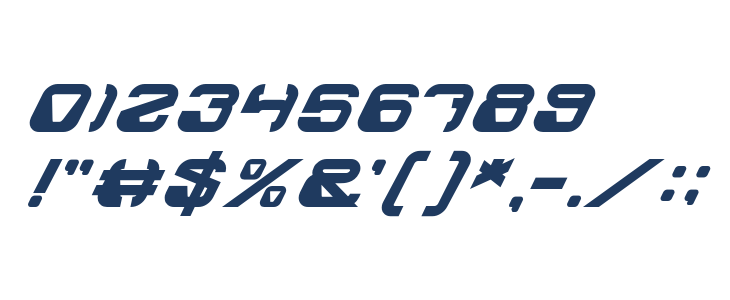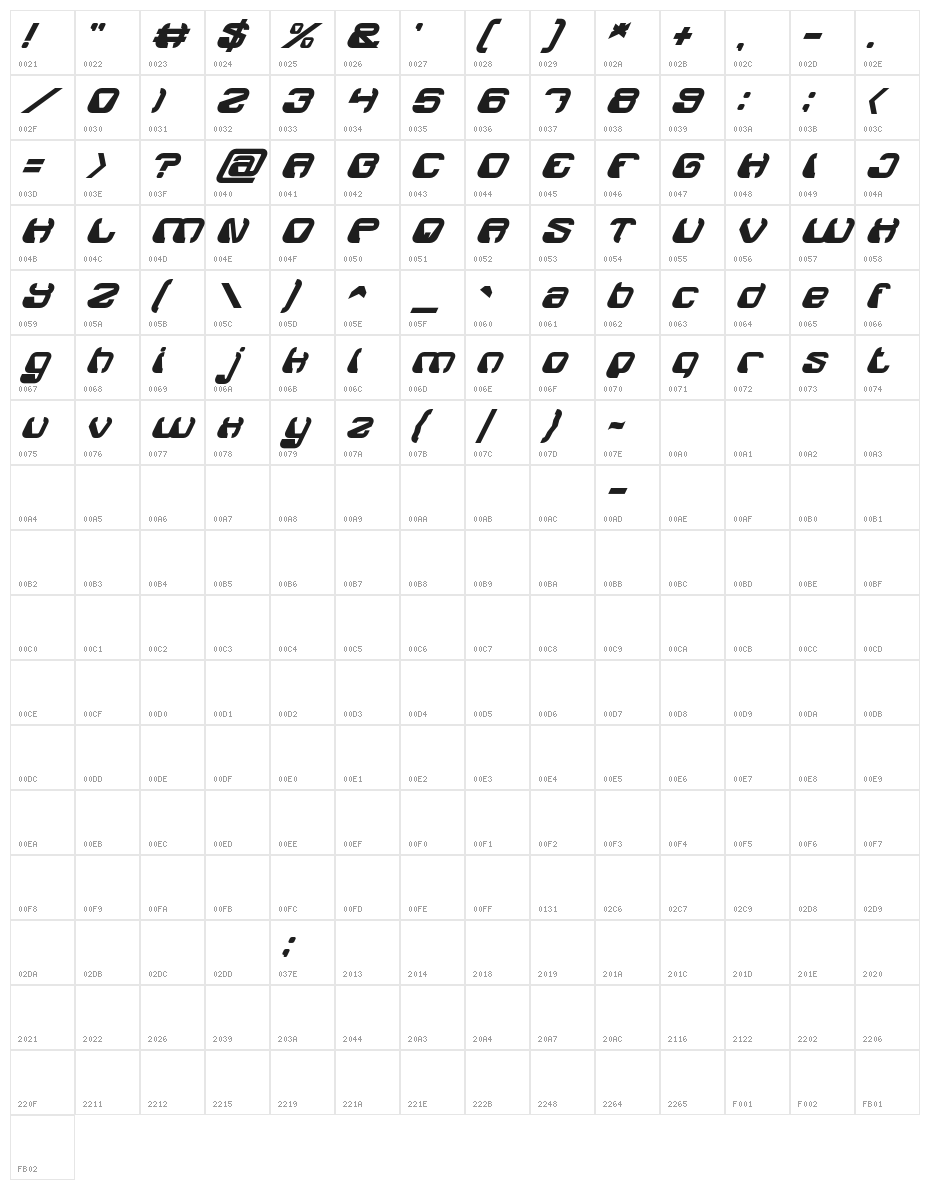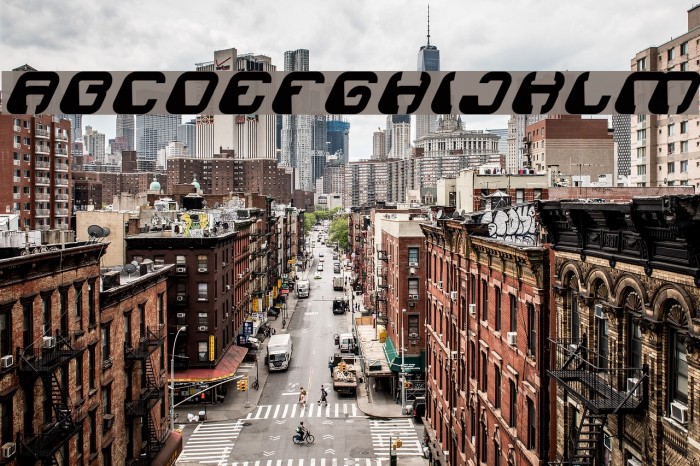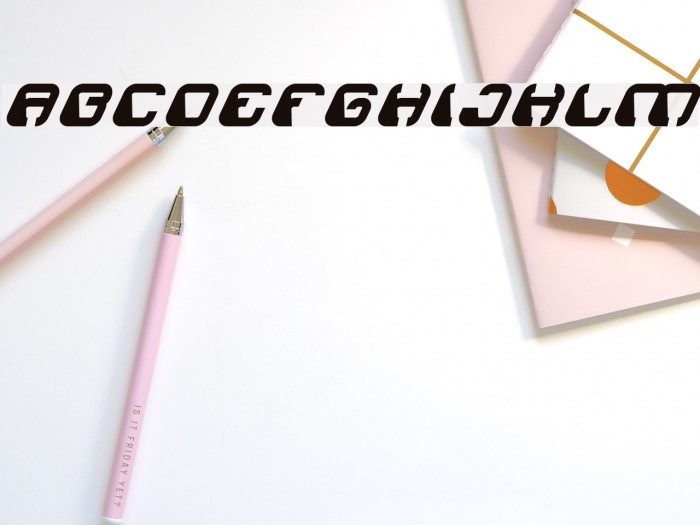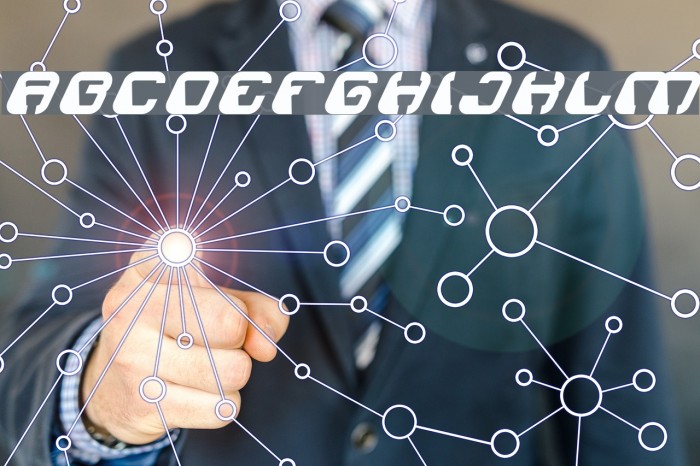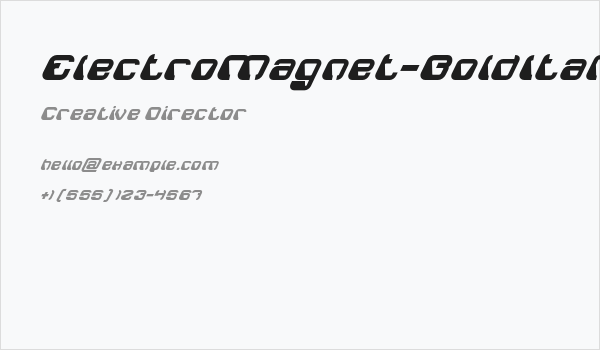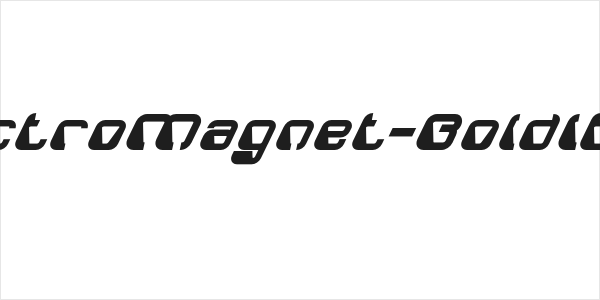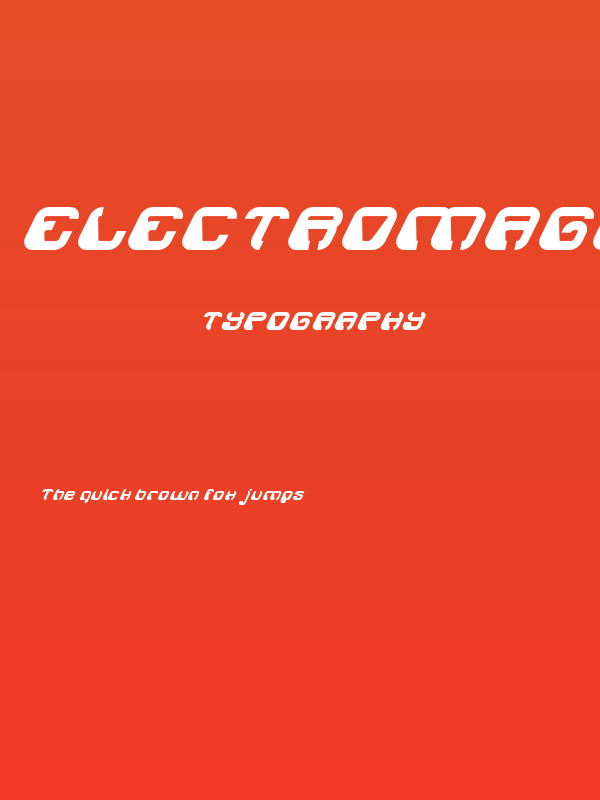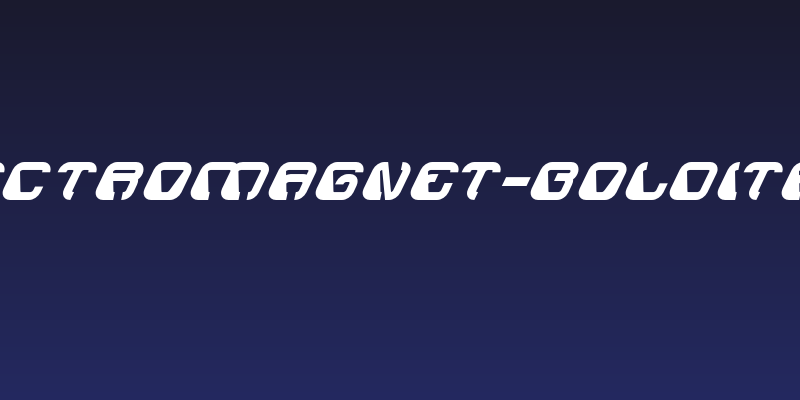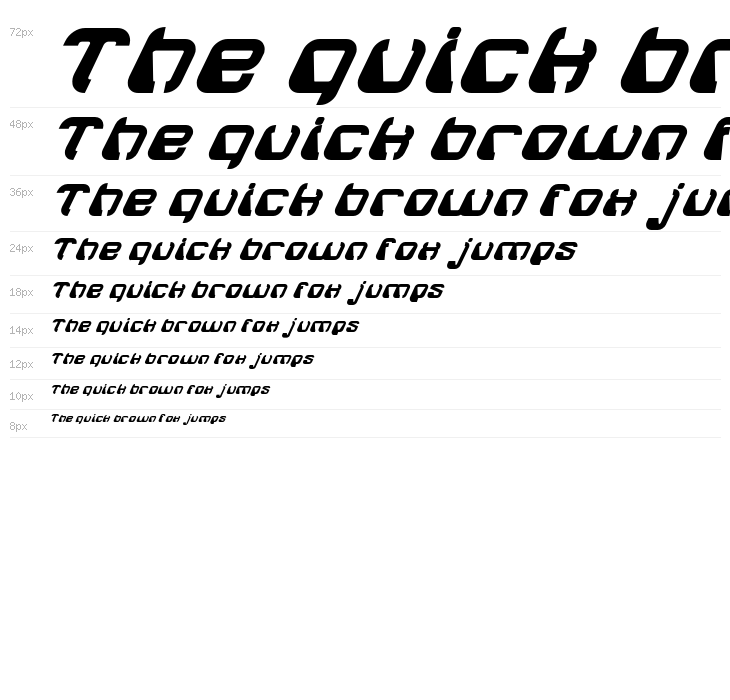
ElectroMagnet-BoldItalic Font
ElectroMagnet-BoldItalic Description
This font features a bold and italicized style with a futuristic and dynamic appearance. The characters are designed with a slanted orientation, giving them a sense of motion and energy. The strokes are thick and consistent, providing a strong visual impact. The font has a modern, tech-inspired aesthetic, making it suitable for projects that require a contemporary and edgy look. The character spacing is normal, ensuring readability while maintaining its unique style. The numbers and special characters are crafted to match the overall design, offering a cohesive and unified appearance across all elements.
| Proposed Projects | Ideal for technology branding, sci-fi themed designs, video game titles, and modern advertising. |